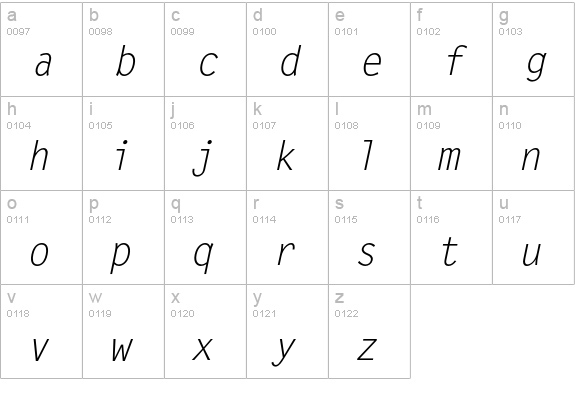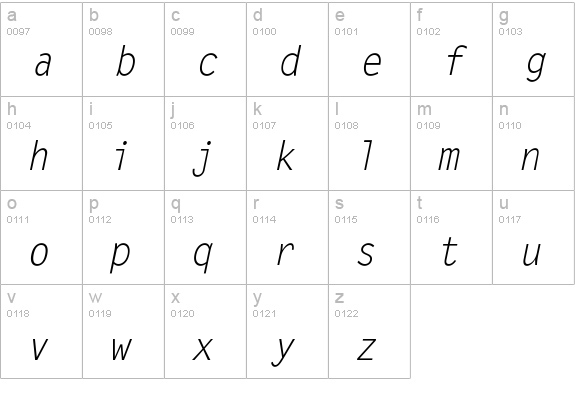
Letter Gothic Std Slanted is a sleek and stylish font that exudes a sense of sophistication and professionalism. With its unique slanted design, this font effortlessly combines modern aesthetics with a touch of classic elegance. The clean lines and sharp angles of this typeface make it the perfect choice for a variety of design projects, from print materials to digital content. Whether you're creating a logo, designing a website, or crafting a magazine layout, Letter Gothic Std Slanted will add a touch of refinement to your work. One of the most appealing aspects of Letter Gothic Std Slanted is that it is freely available to download at FontsMarket.com. This means that you can easily access this exceptional font without having to spend a dime. With just a few clicks, you can enhance your design projects with the timeless beauty of Letter Gothic Std Slanted. The versatility of this font is truly impressive. Its slanted design gives it a dynamic and energetic vibe, making it an excellent choice for projects that require a sense of movement and excitement. At the same time, its clean and precise shapes make it highly legible, ensuring that your message will be easily understood by your audience. Letter Gothic Std Slanted is a font that effortlessly combines form and function. Its modern yet timeless design will make your projects stand out and leave a lasting impression. Whether you're a professional designer or a hobbyist, this font is a valuable addition to your toolkit. So why wait? Head over to FontsMarket.com and download Letter Gothic Std Slanted for free today. Elevate your designs with this exceptional font and let your creativity soar.